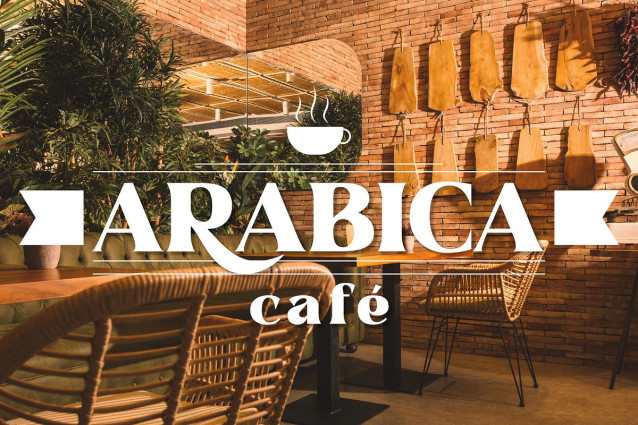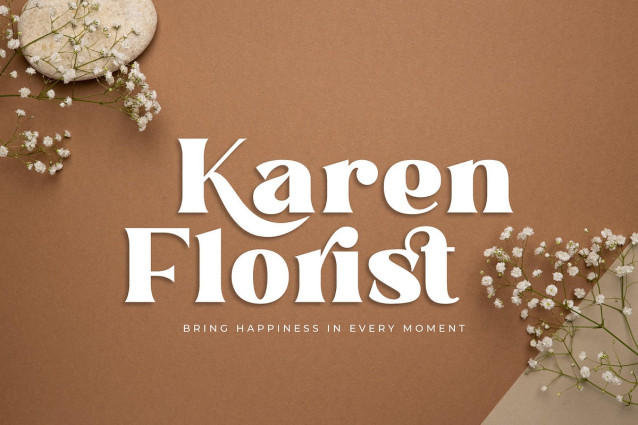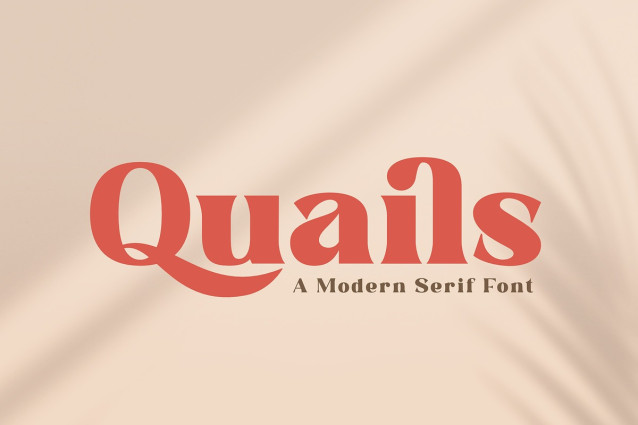
Quails Font is a modern display serif font that is perfect for fashion, branding, wedding invitation, flyer, and logo design projects. This font features unique alternates and ligatures that add charm and personality to your texts.Whether you are looking for a font for a clothing line, a beauty brand, or a wedding event, Quails will give you the perfect look.
Quails is easy to use and versatile, giving your designs a fresh and modern look. The font’s elegant curves and sharp edges make it ideal for designs that require a touch of style and elegance. You can use Quails for logos, branding, posters, flyers, invitations, and more. Download Quails today and discover the beauty of this modern display serif font